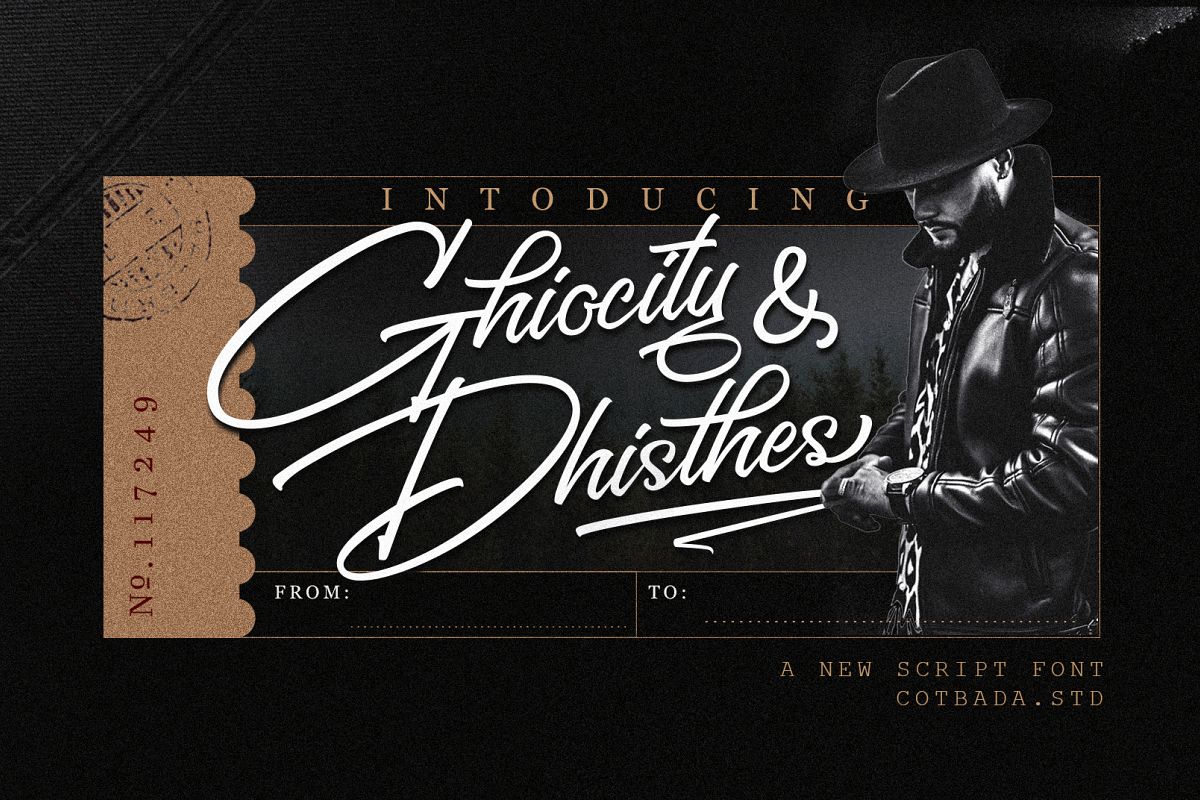
Ghiocity and Dhisthes Font Script
Introducing the new script font called Ghiocity and Dhisthes. High quality script font with swashes inspired by modern vintage design . Plus OpenType features with Stylistic Alternates, Swashes, Stylistic set, that allows you to mix and match pairs of letters to fit your design. This font good for vintage design, t-shirt, logo, labels,badges, posters and etc.